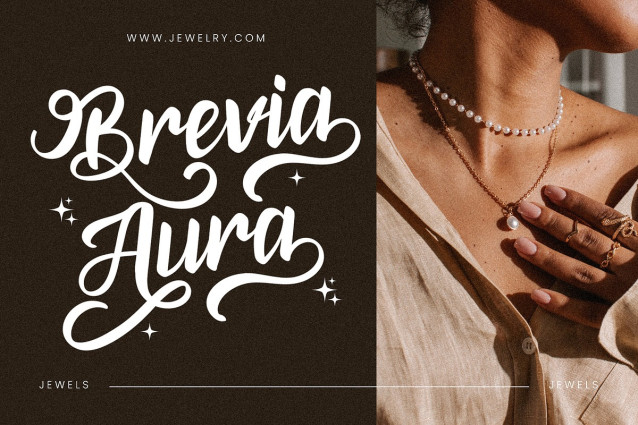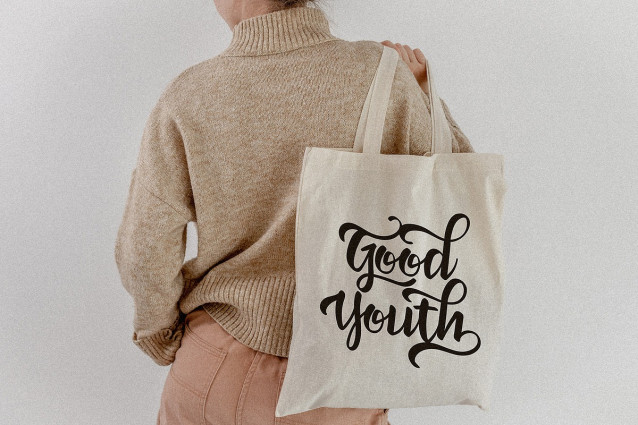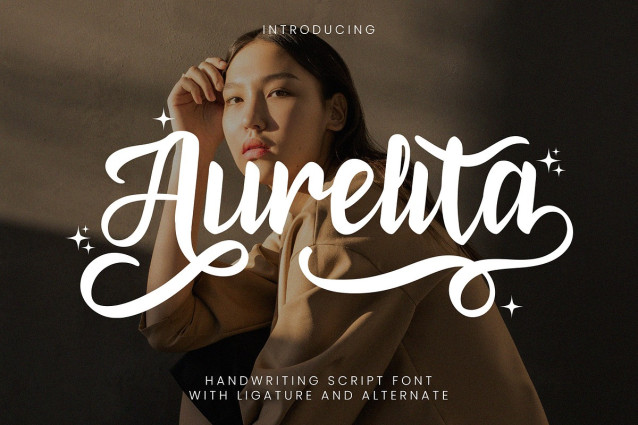
Aurelita Script Font
Aurelita Script Font – Handwriting Script Font. Beautifully crafted Handwriting Script Font, featuring smooth, flowing strokes that add charm to logos, wedding stationery, quotes, and lifestyle designs